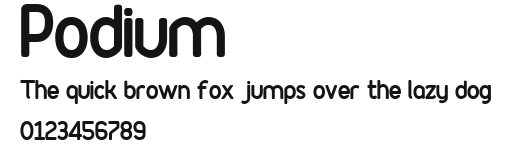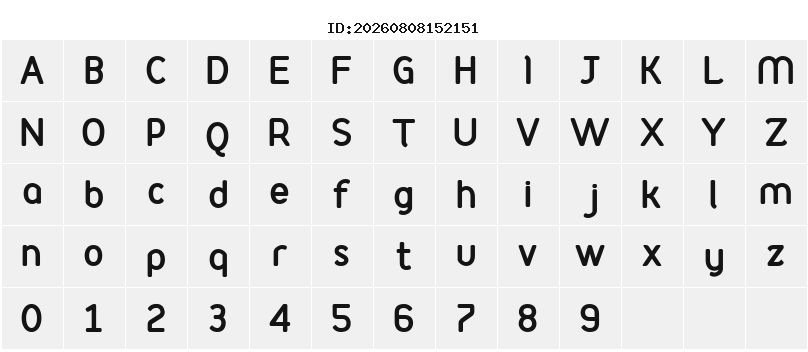
• Font Name: Podium
• Full Font Name: PodiumBold
About Podium.ttf
Podium.ttf is a modern, elegant sans-serif font designed for ultimate readability and visual harmony. Perfect for branding, headlines, web design, and print materials.